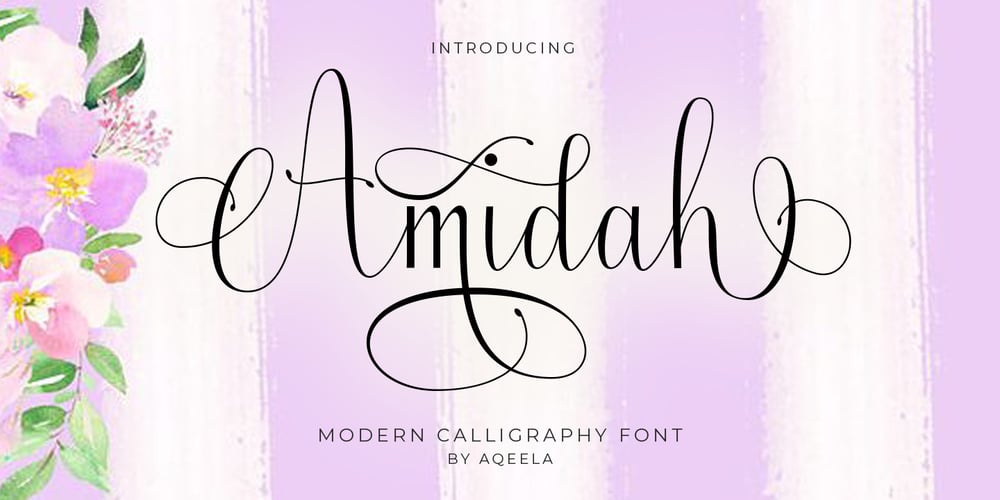
Amidah Font Family was designed by Muhammad Nasir and published by Aqeela Studio. Amidah contains 1 styles and family package options. Amidah is a new modern calligraphy font with an irregular, trendy and feminine line style. Amidah looks beautiful on wedding invitations, thank you cards, quotes, greeting cards, logos, business cards and more. Perfect for use in ink or watercolors. Includes beginning and ending letters, alternatives, binders and multi-language support. To enable the OpenType Stylistic alternative, you need a program that supports OpenType features such as Adobe Illustrator CS, Adobe Indesign & CorelDraw X6-X7, Microsoft Word 2010 or newer versions. There are additional ways to access alternatives / swashes, using Character Map (Windows), Nexus Fonts (Windows), Font Book (Mac) or software programs such as PopChar (for Windows and Mac). How to access all alternative characters: https://www.youtube.com/watch?v=Go9vacoYmBw https://www.youtube.com/watch?v=XzwjMkbB-wQ https://www.youtube.com/watch?v=x1A_ilsBsGs https://www.youtube.com/watch?v=xFlMwARHusY Thank you very much for searching and let me know if you have any questions. Regards Aqeela